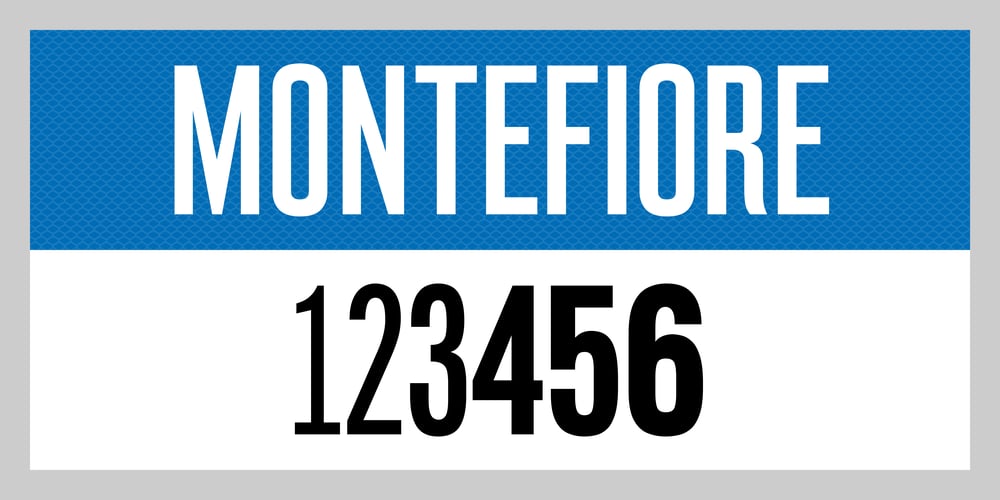
Montefiore Font Family was designed by Colophon Foundry and published by Colophon Foundry. Montefiore contains 5 styles and family package options. Montefiore was originally inspired by a Victorian road sign found in Hove, England. Drawn from a single photograph of Montefiore Road, the production methods used on the sign added a warmth and depth that, through process, affected the form of the type.Initially drawn in two condensed weights, the typeface intended not to re-draw it like-for-like, but to extrapolate an essence that permeates the full two weights. In 2017, Montefiore was extended and updated to include six weights and further language support.